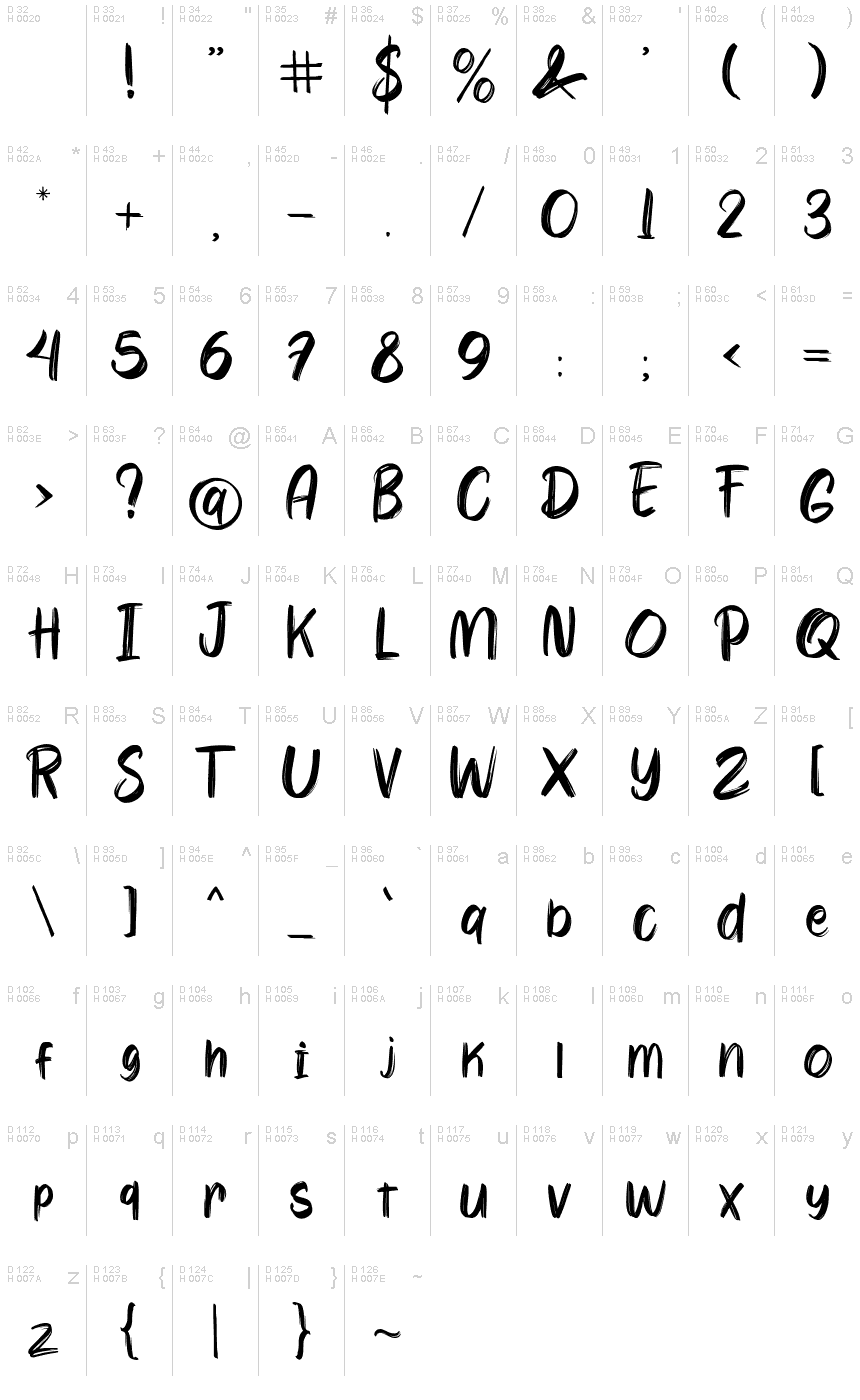
Wayhem
Wayhem is a textured brush font with rough and casual letters designed by Typefactory. Its great for logos, branding, print projects and any attention drawing headline.